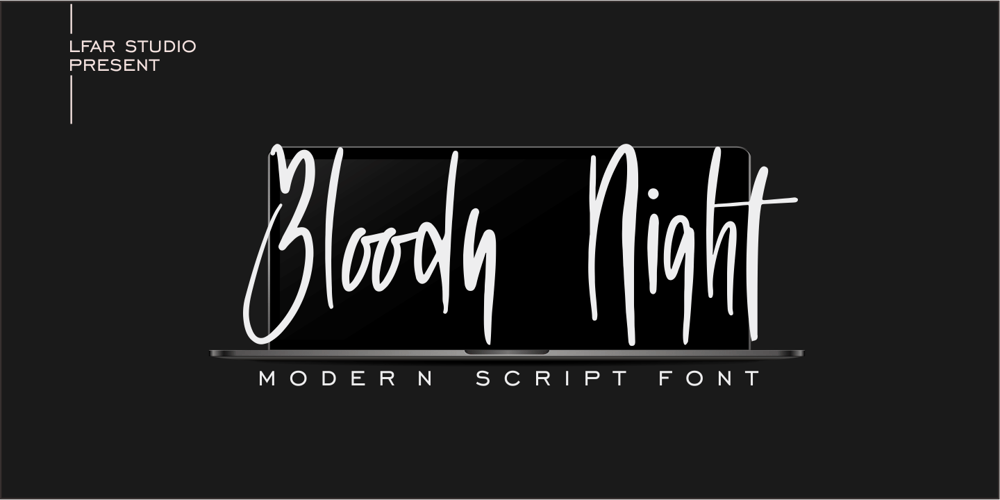
Bloody Night
Bloody Night font
Bloody Night Font Family was designed by Lalan Farlan and published by LfarStudio. Bloody Night contains 1 styles and family package options. Halo!thank for your visit :)Bloody Night is a dark metal handwritten font with a horror feel and creepy impression. it looks stunning on movie title, book covers, photography, greeting cards, creepy quotes, and much more. This font is PUA encoded which means you can access all of the glyphs and swashes with ease!